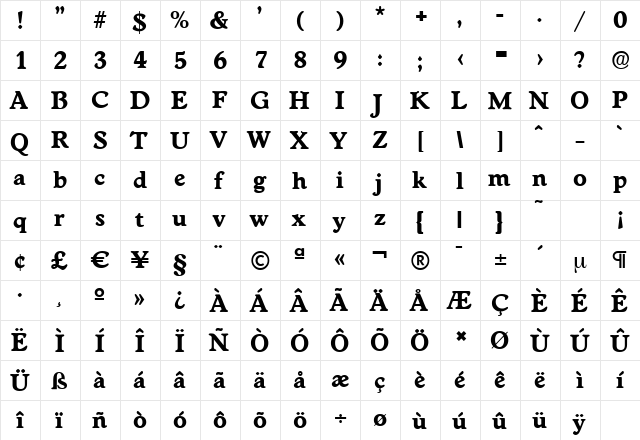
WorcesterSerial-Xbold Regular
Design Context for WorcesterSerial-Xbold Typeface
WorcesterSerial-Xbold offers clean, dependable letterforms without strong stylistic allegiance, making it a practical choice for designers who need flexibility. The heavy weight commands attention and anchors typographic hierarchies.